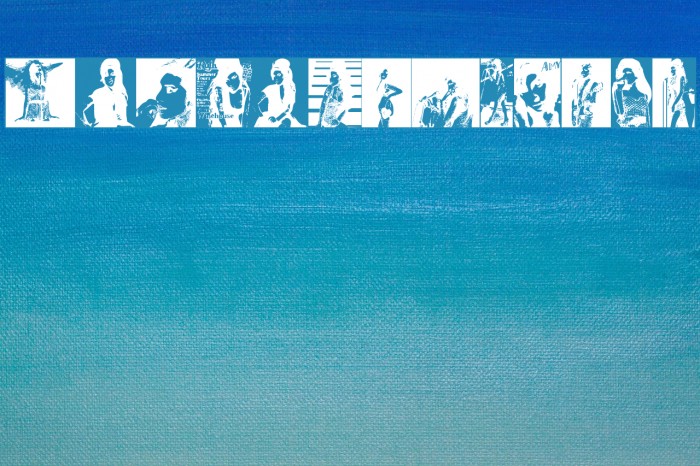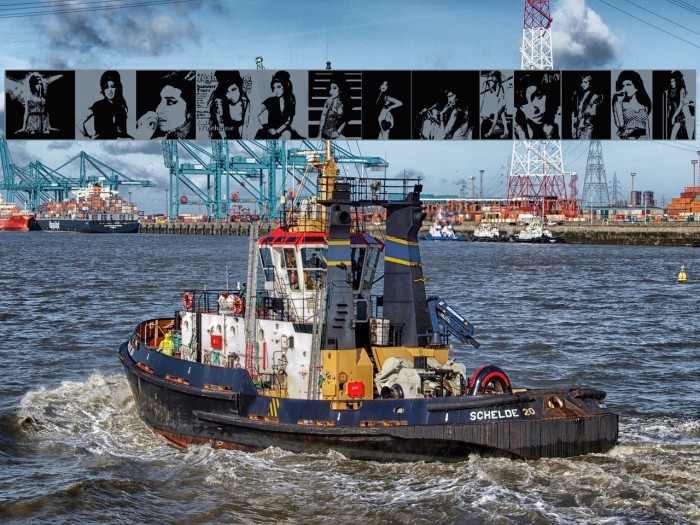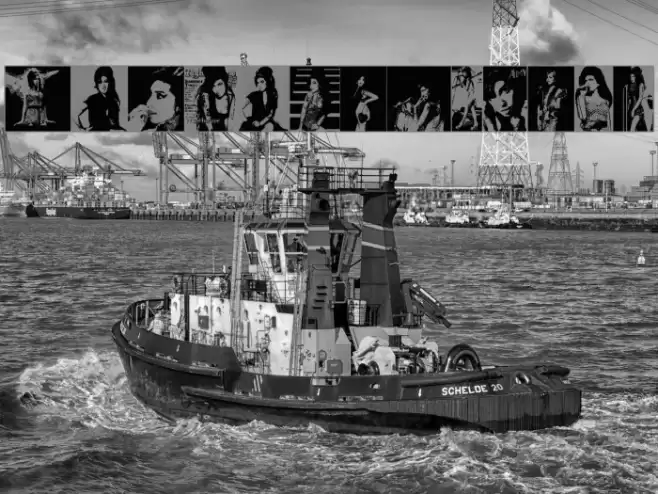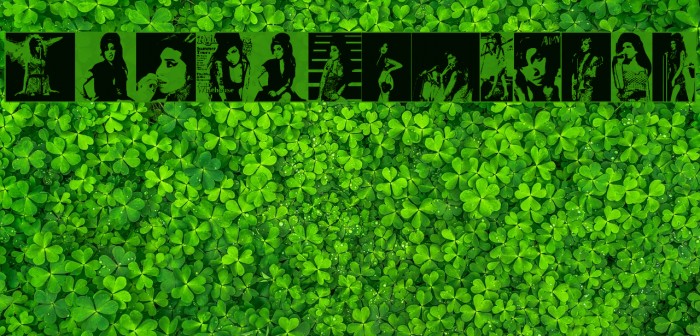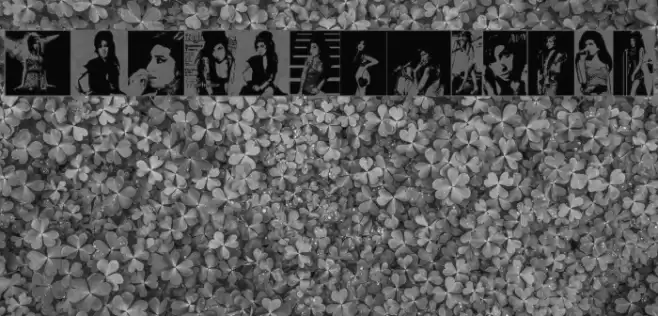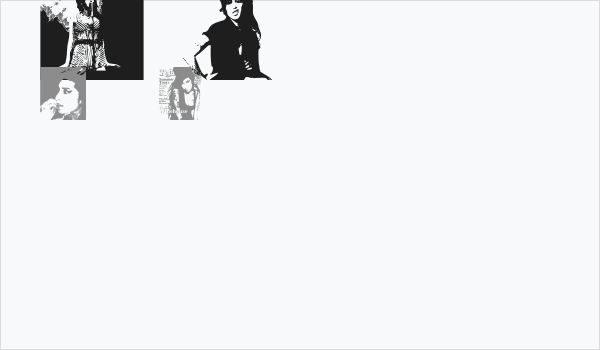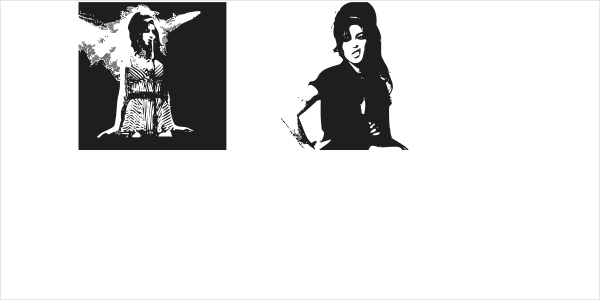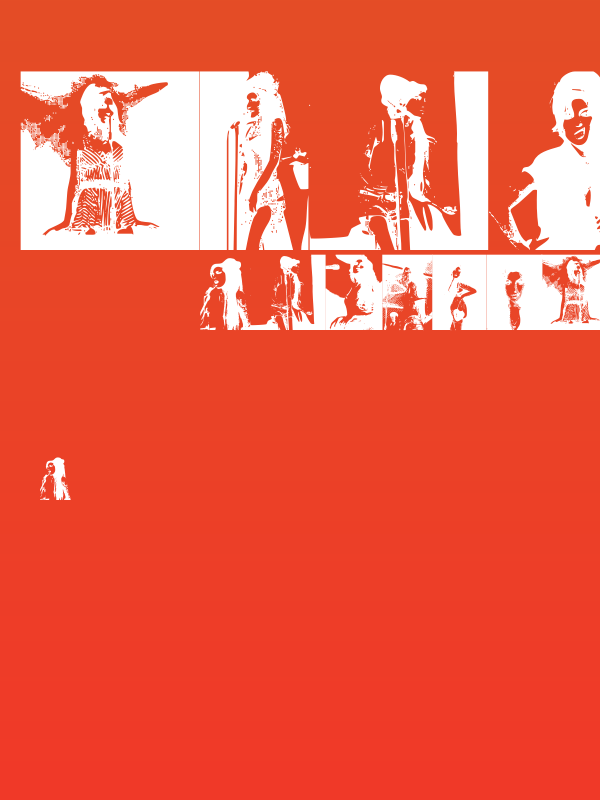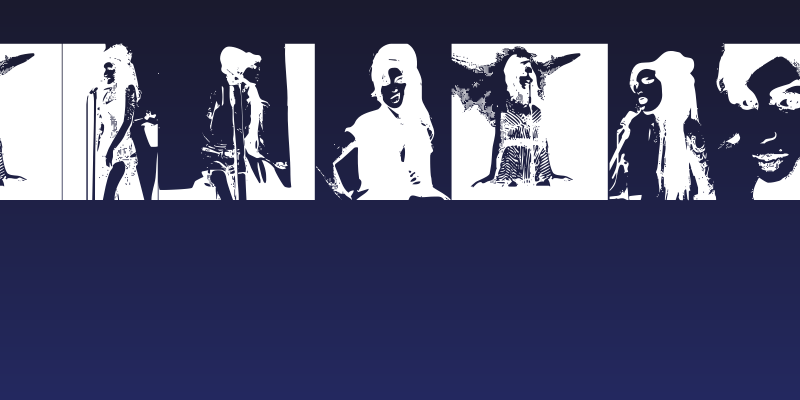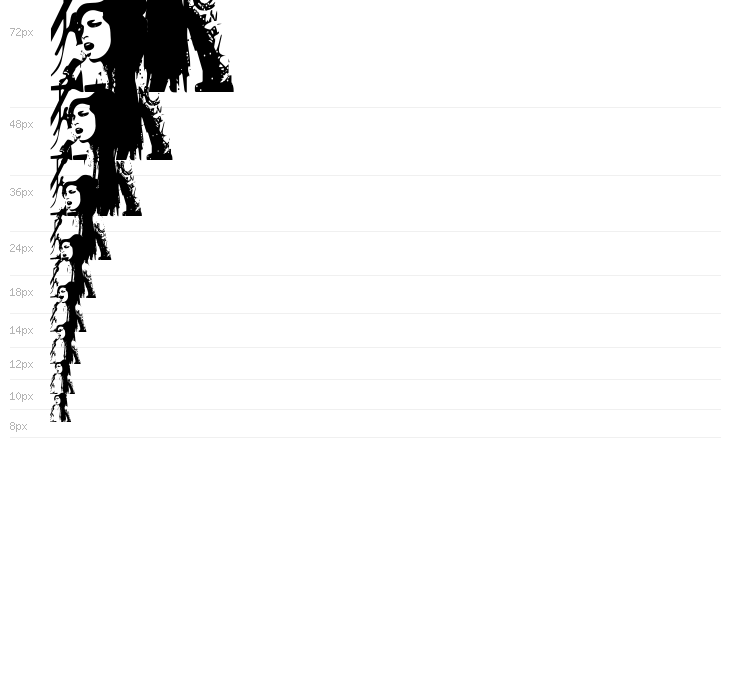
AmyBats2 Font
AmyBats2 Description
A decorative display font where each character is represented by a high-contrast, black-and-white photographic portrait or scene, creating a visually striking and unconventional alphabet.
| Overall Style | Decorative, Artistic, Modern |
| Use Case | Logos, Headlines, Posters, Artistic projects |
| Proposed Projects | Album covers, event posters, art installations, themed branding, creative headlines. |